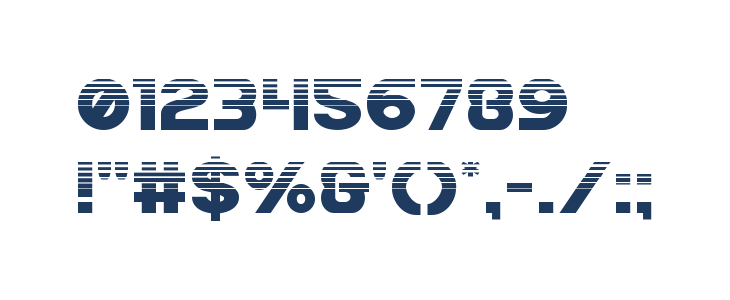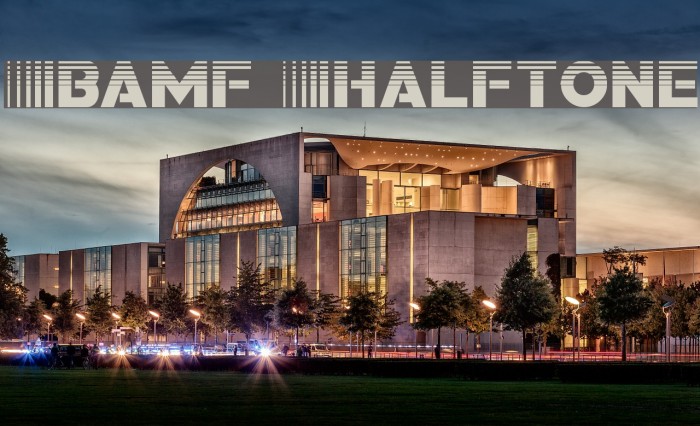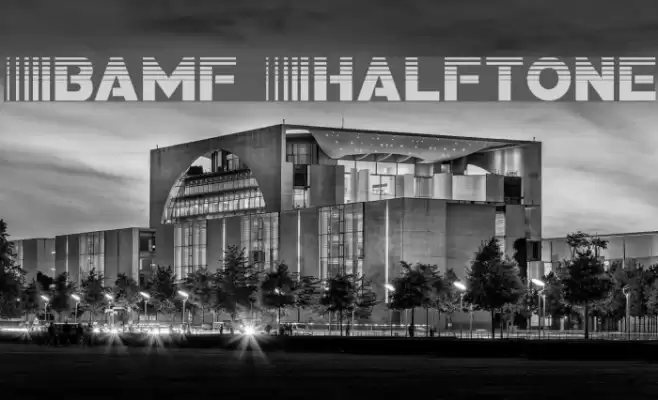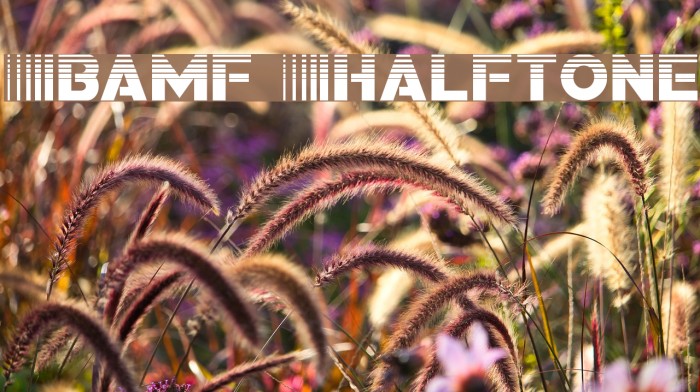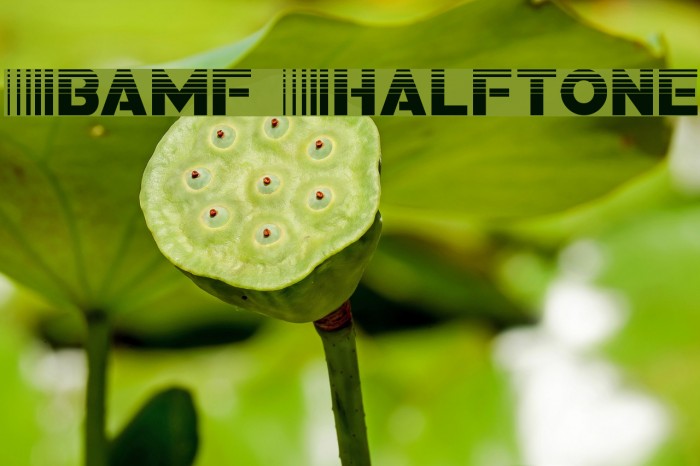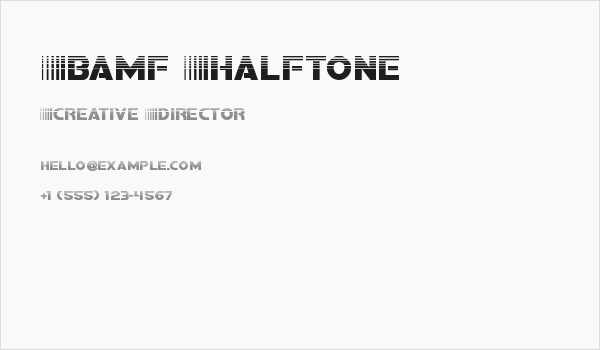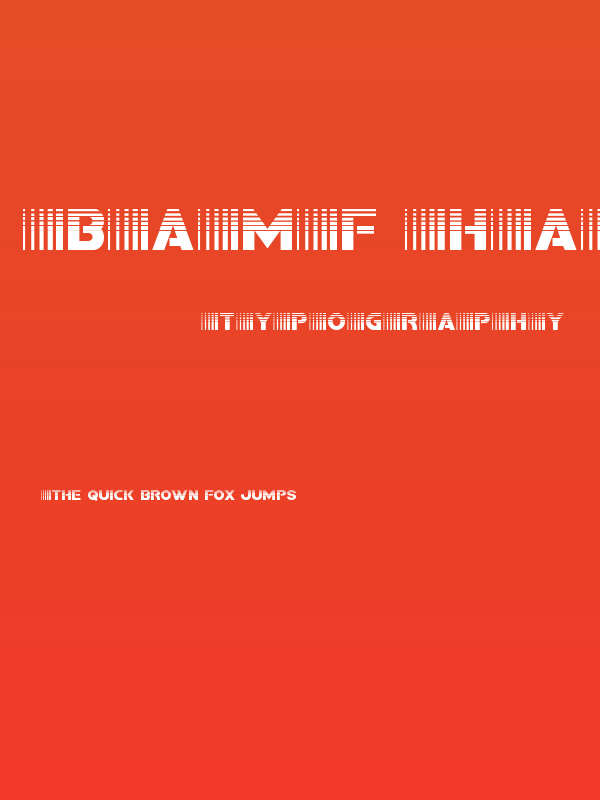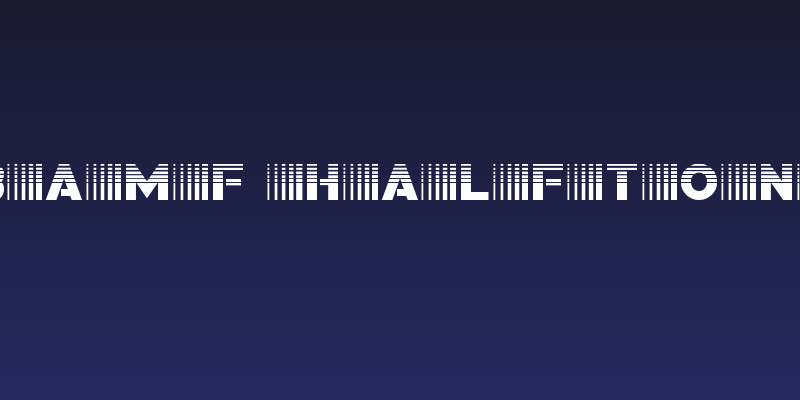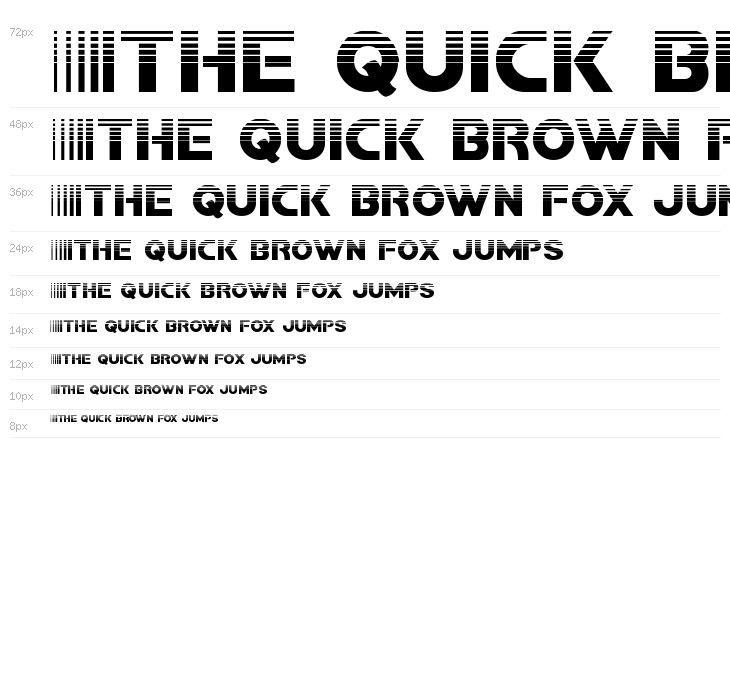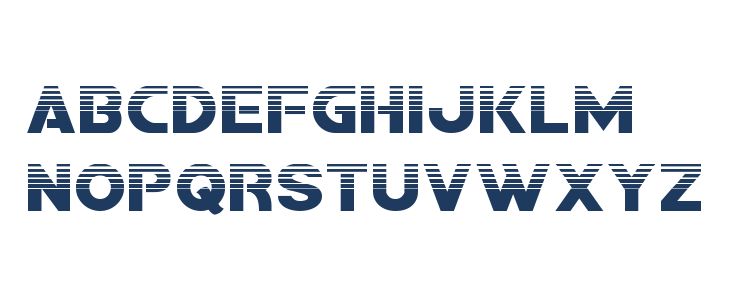
Bamf Halftone Font
Bamf Halftone Description
This font features a bold and striking design with a halftone effect that gives it a unique, modern appearance. The characters are constructed with solid, thick strokes interrupted by horizontal lines, creating a dynamic visual rhythm. This style is reminiscent of retro digital displays or industrial design, making it stand out in any application. The uppercase letters are particularly prominent, with a strong geometric influence, while the numerals and special characters maintain the same bold aesthetic. The font's distinct halftone pattern adds texture and depth, making it ideal for eye-catching designs.
| Proposed Projects | Ideal for posters, logos, headlines, and any design project that requires a bold, modern aesthetic. |